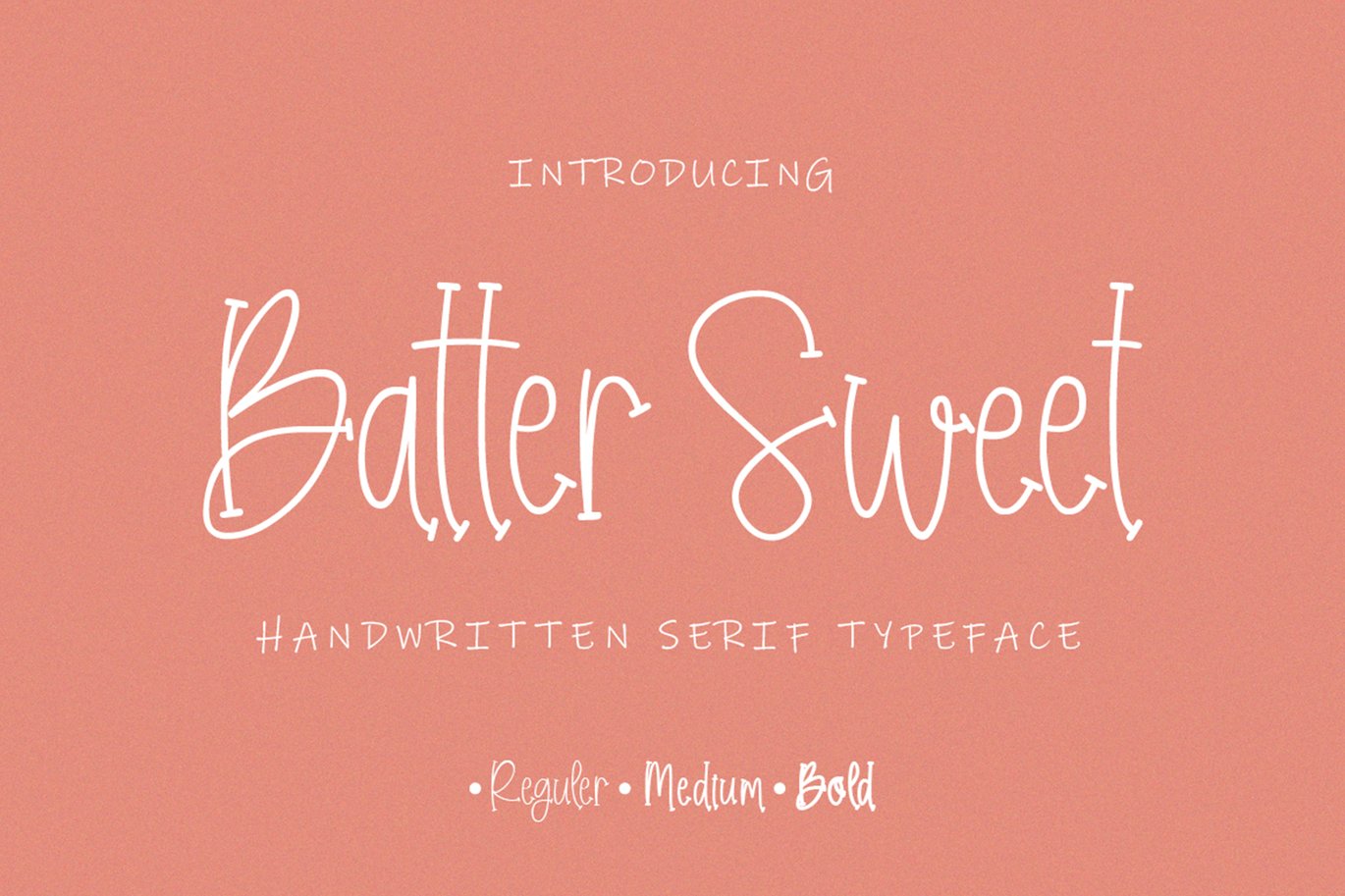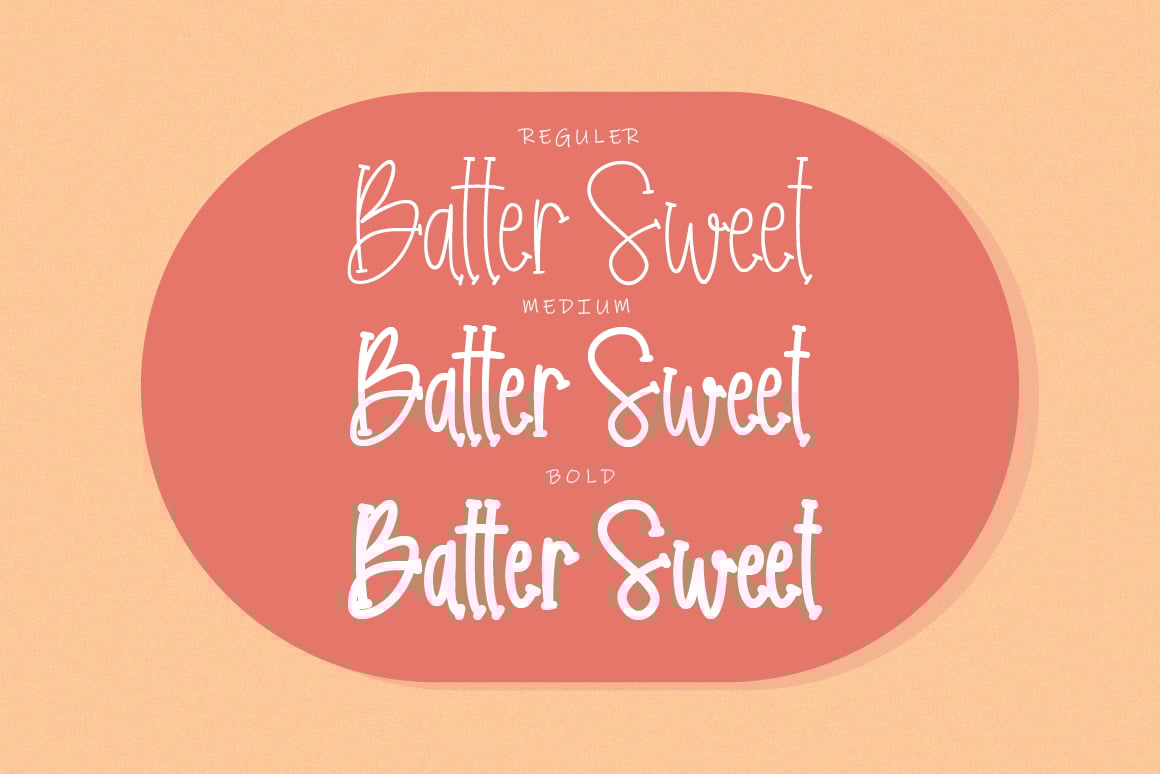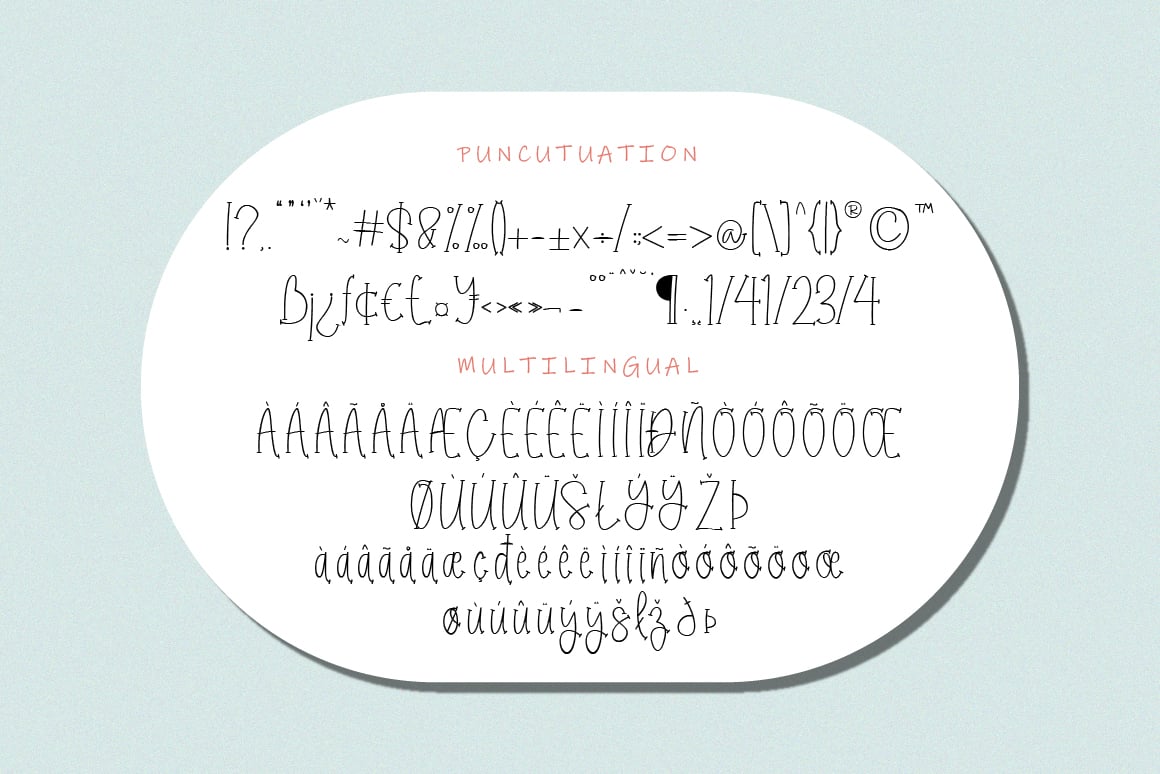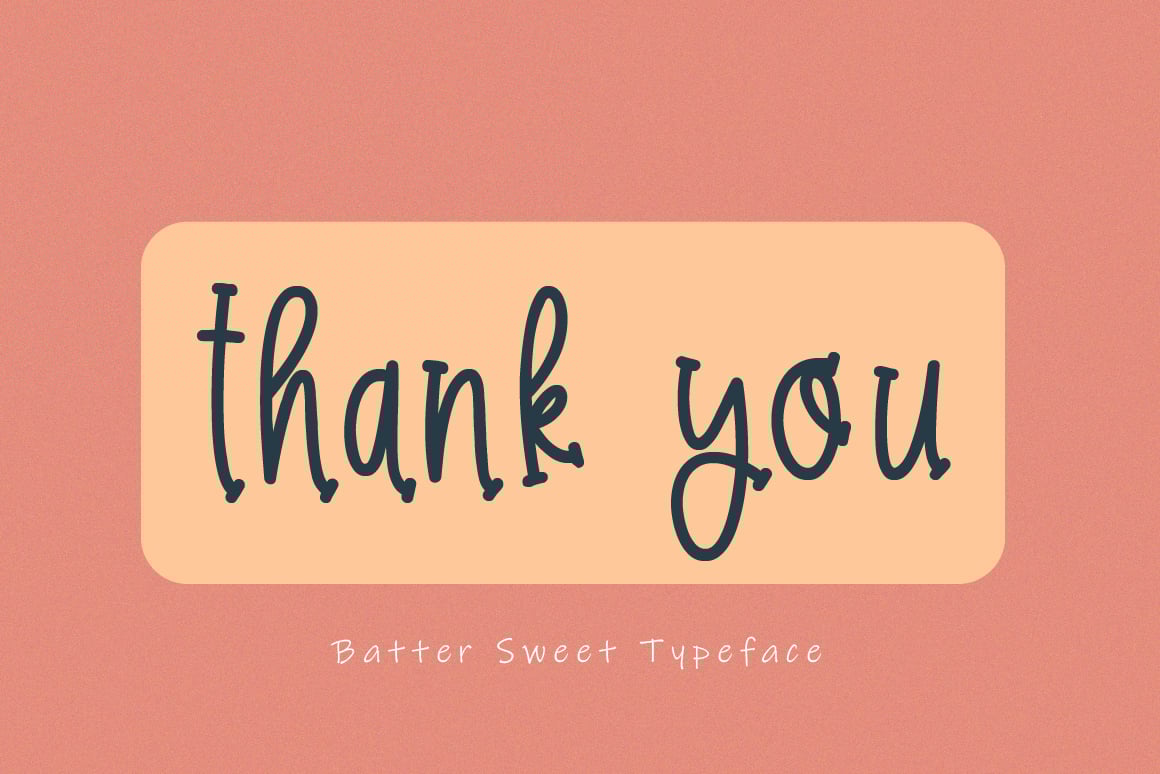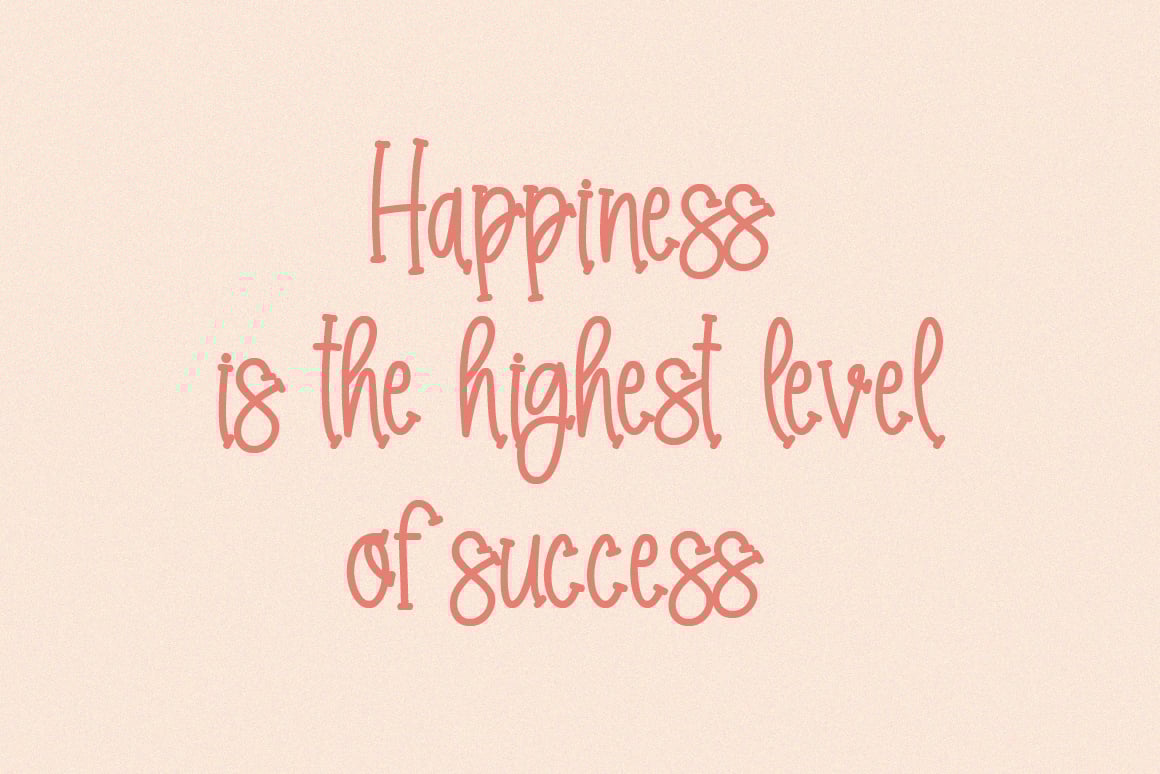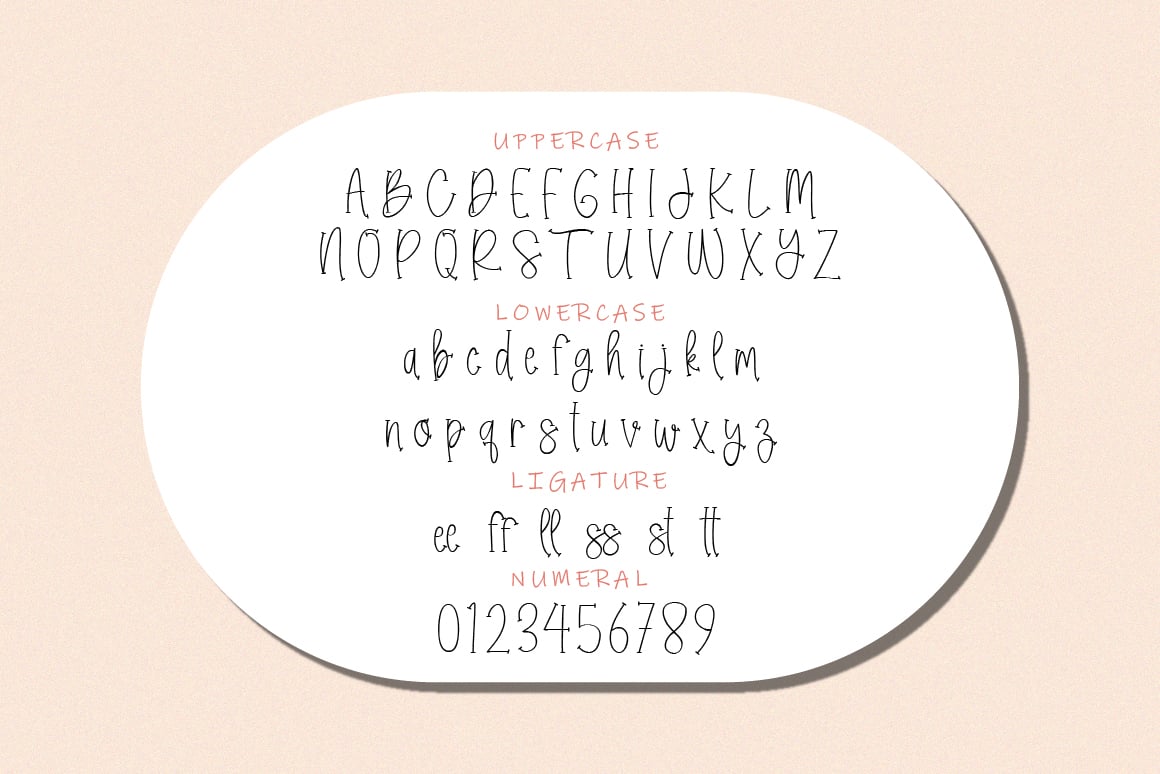
Batter Sweet Handwritten Serif Font
Batter Sweet is a cute and charming handwritten serif font. Whimsical and a bit quirky, this font will brighten up each of your designs. Add it confidently to your projects, and you will love the results.
*Regular, Medium and Bold
*Uppercase, Lowercase, Numerals & Punctuations
*Ligature
*Multilingual support